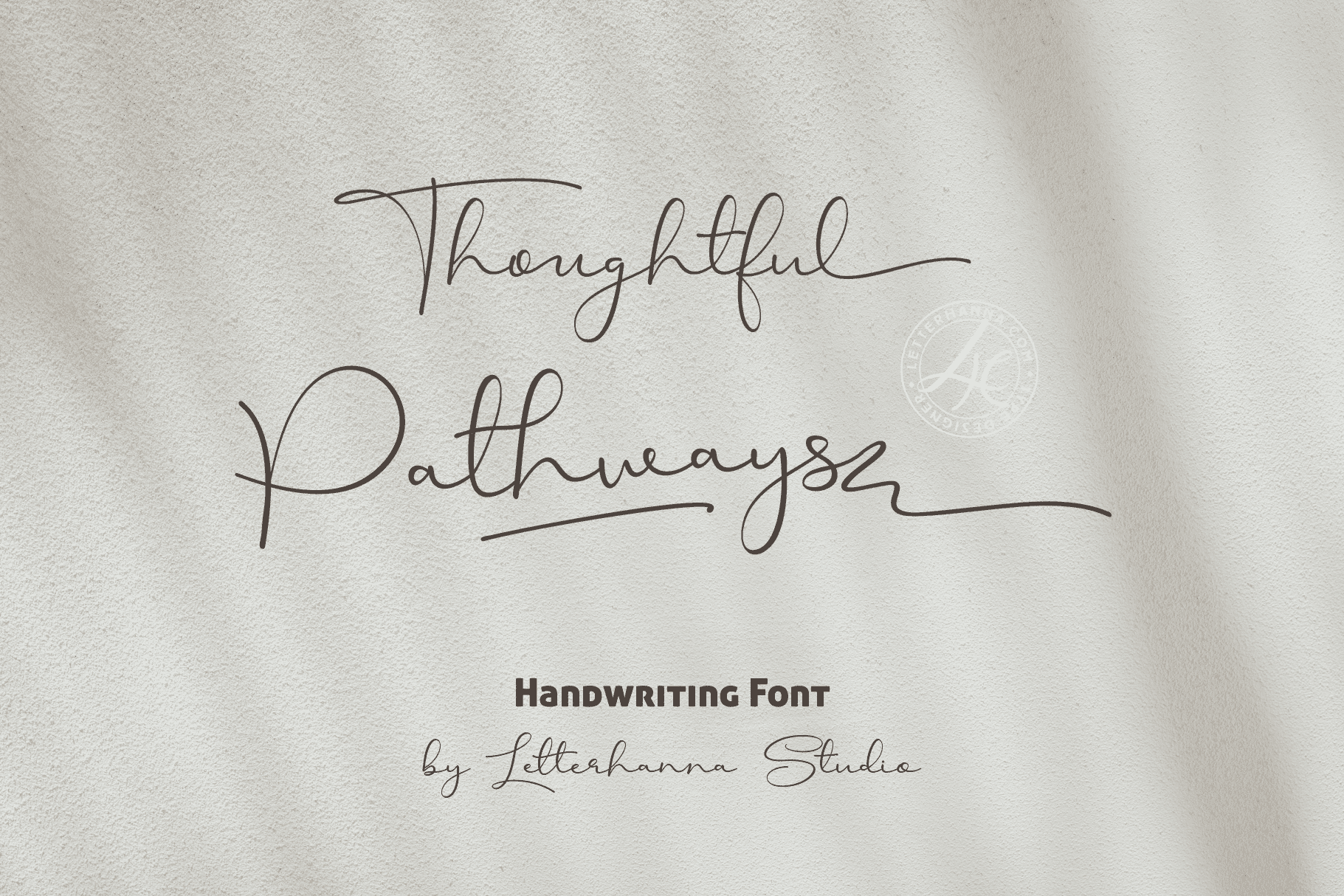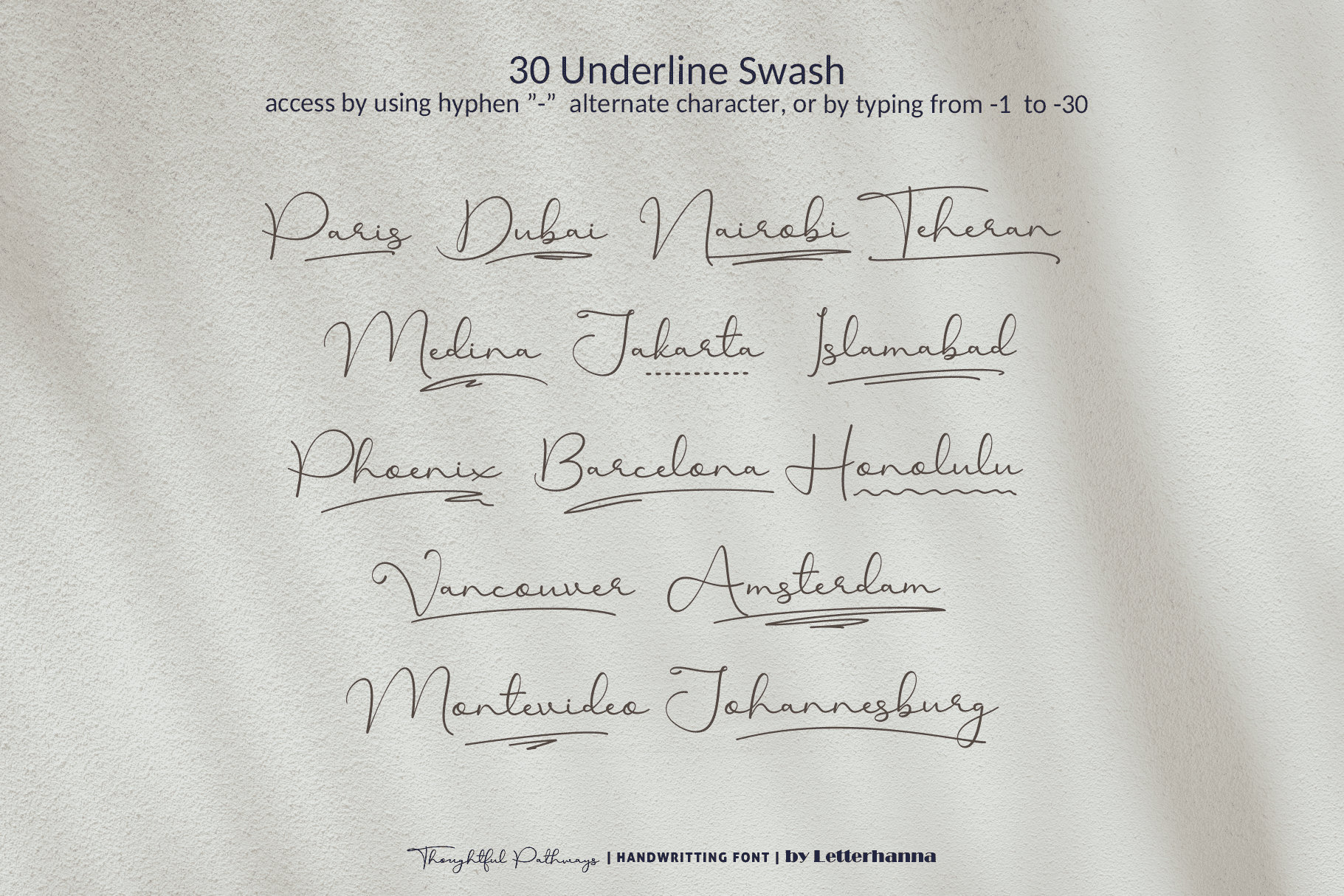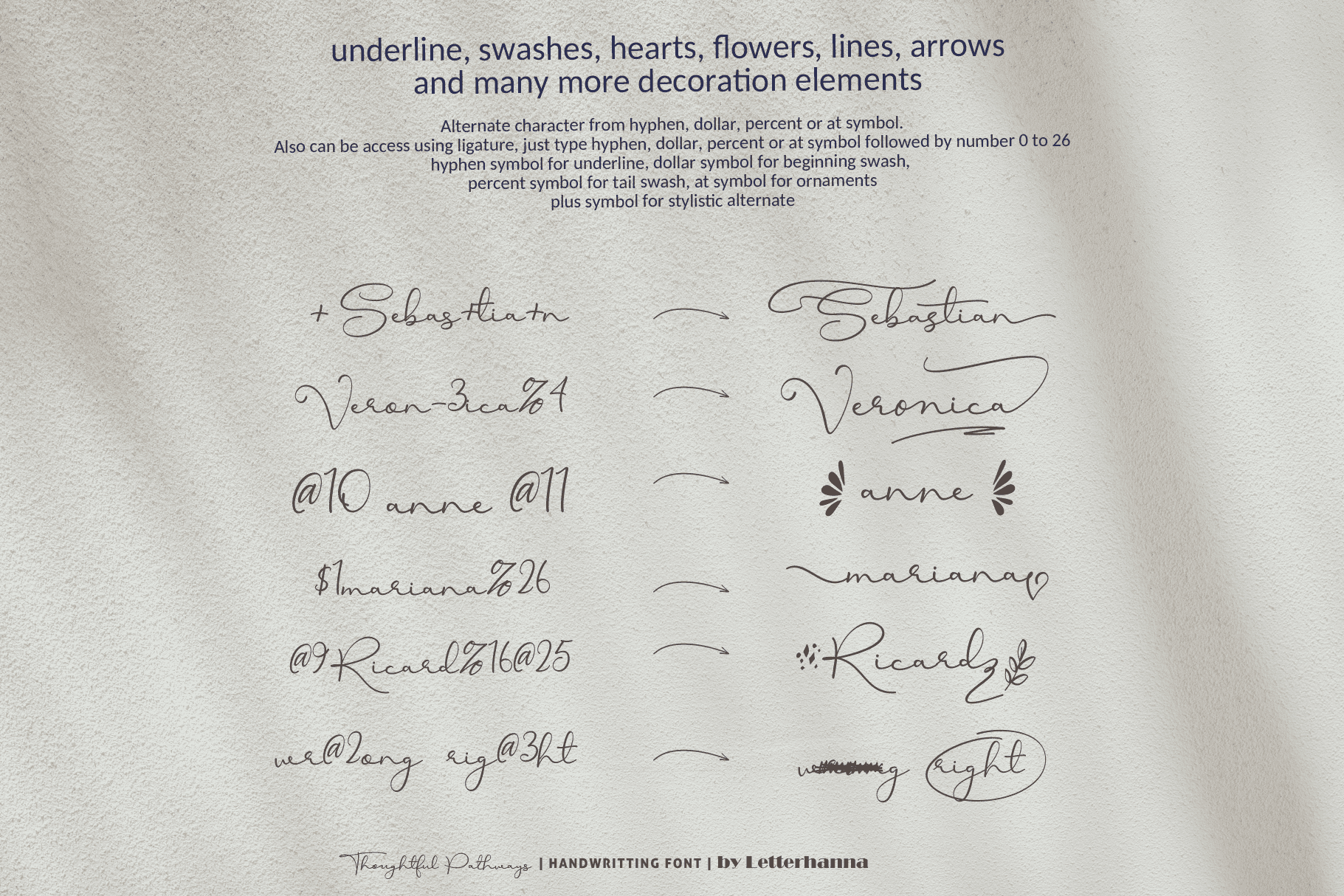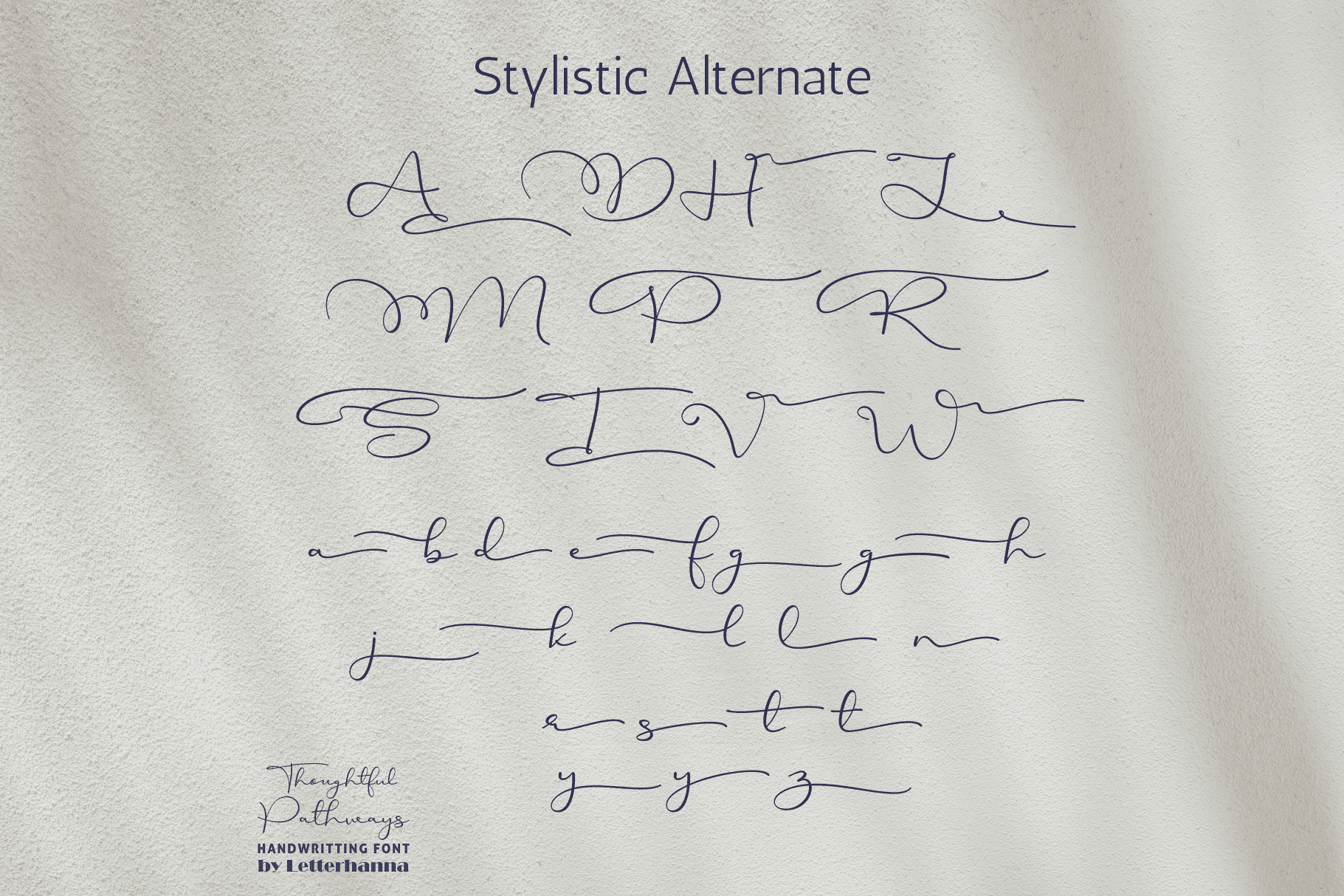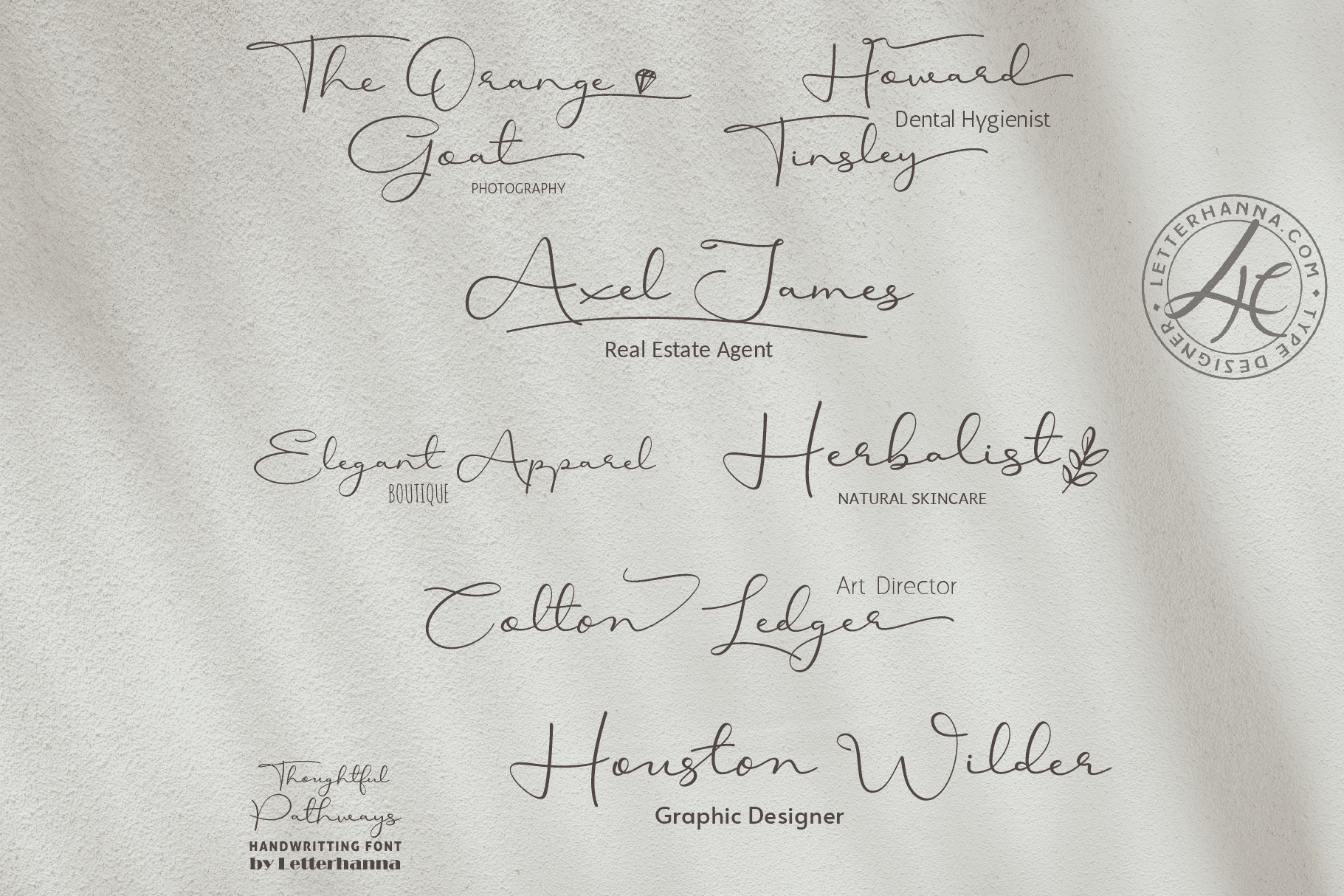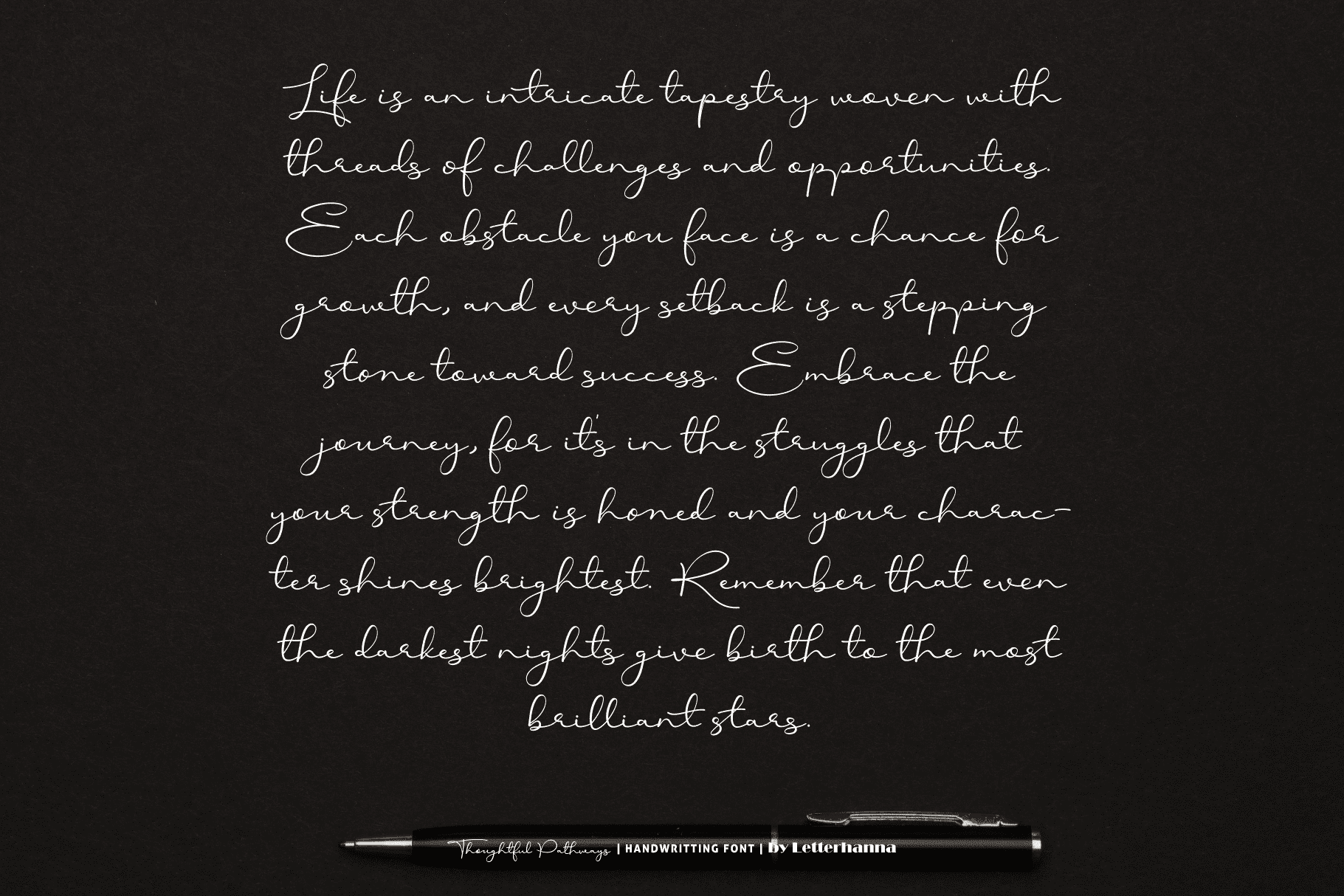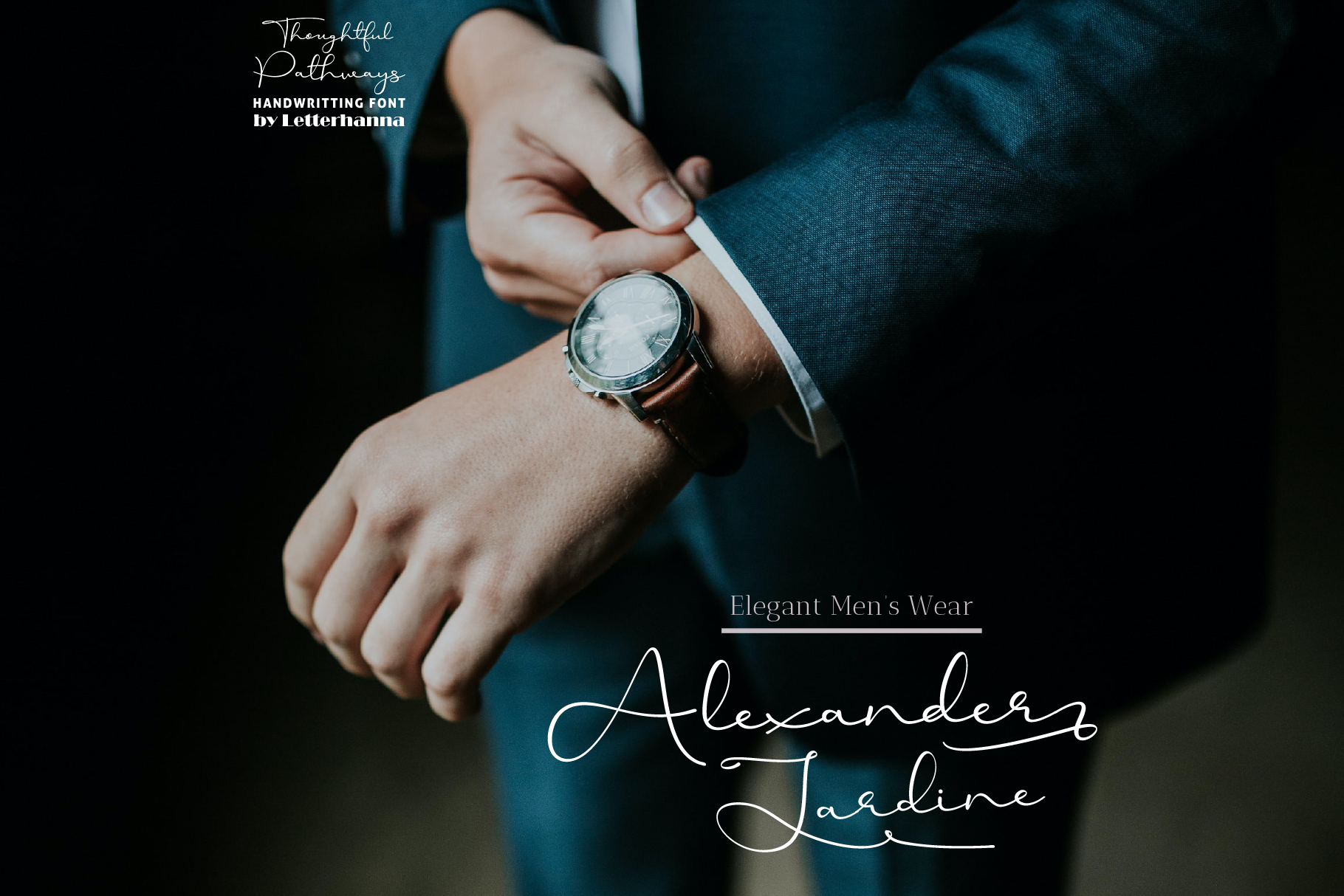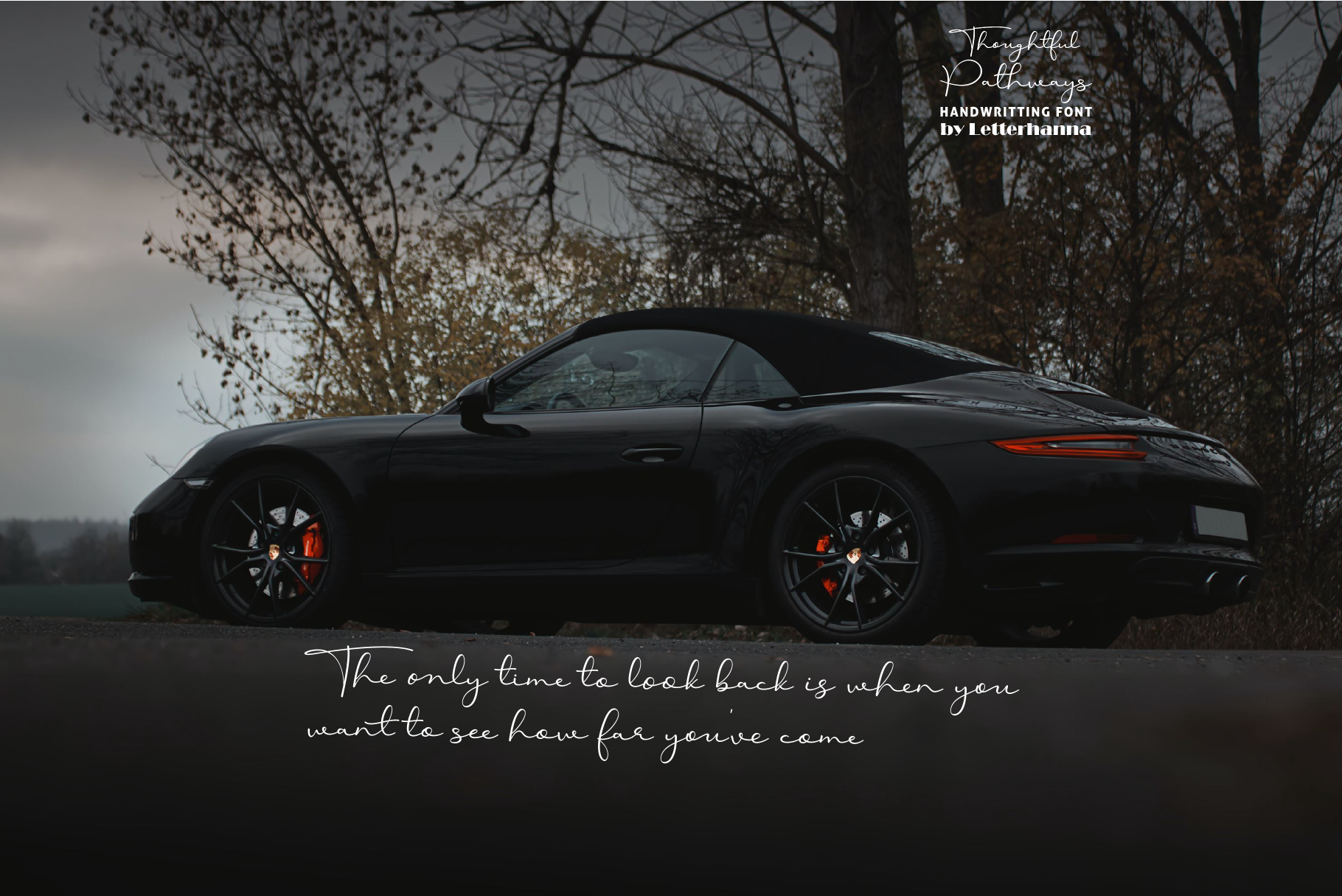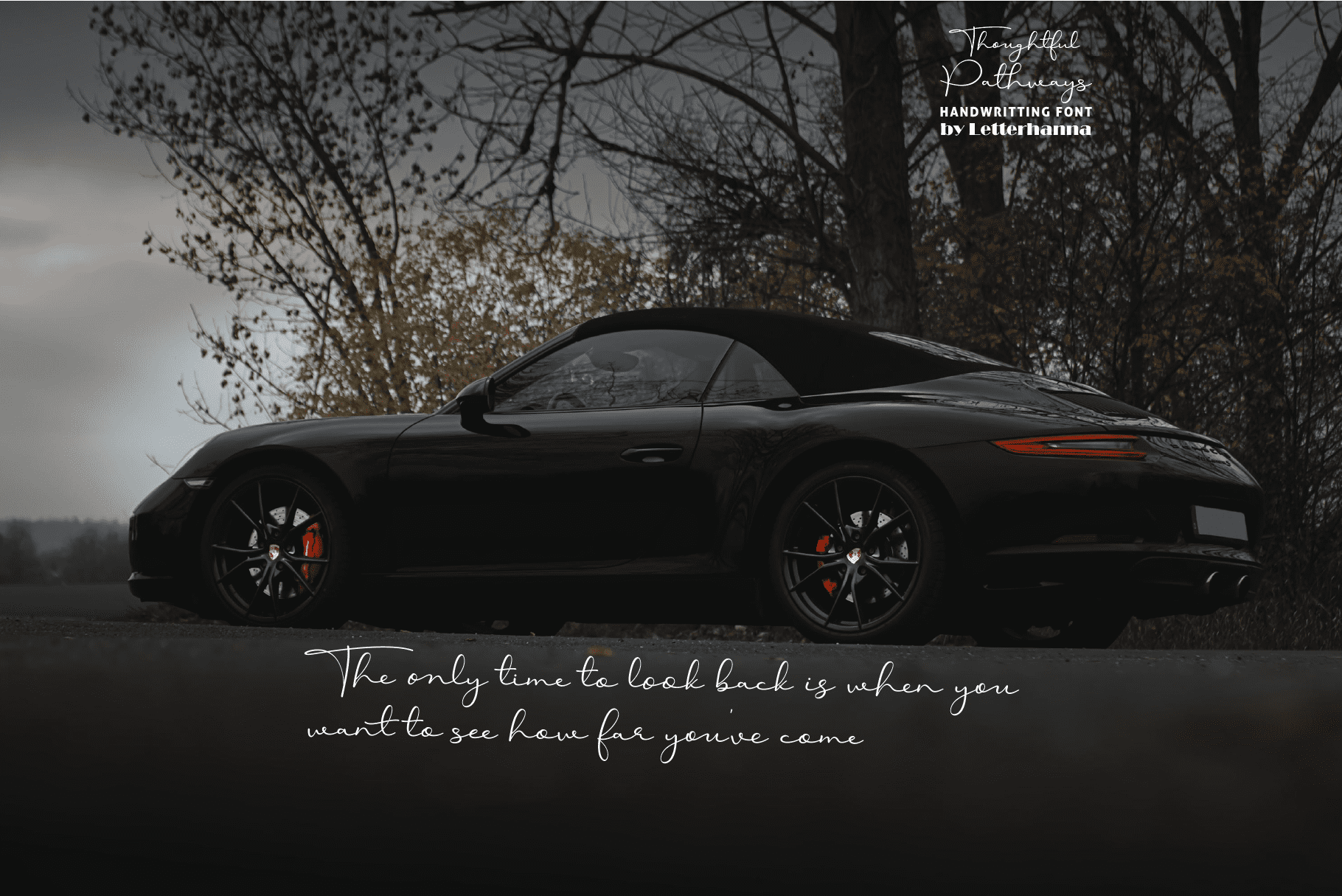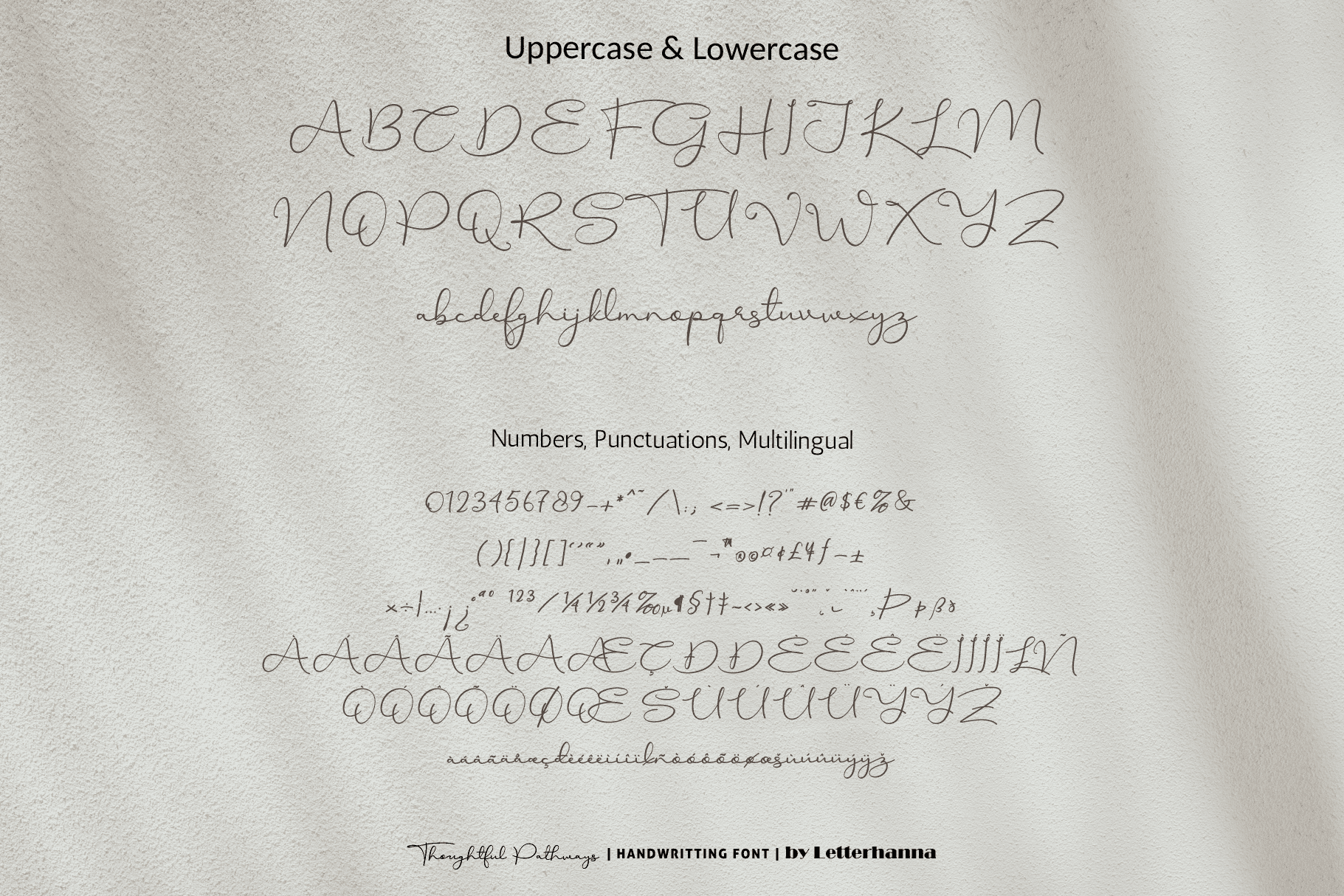
Thoughtful Pathways Font
“Introducing ‘Thoughtful Pathways,’ a captivating handwritten font that captures the essence of introspection and mindful exploration. With every stroke, it whispers the wisdom of a thousand quiet moments, guiding you through the intricate trails of your thoughts. Each letter is an invitation to embark on a journey of self-discovery and contemplation, as if every curve and line maps out the way to inner clarity. ‘Thoughtful Pathways’ is not just a font – it’s a companion for your creative ventures, leading you along the paths of inspiration with grace and intention.”
Thoughtful Pathways Font was created to look as close to a natural handwritten script as possible by including over 33 natural-looking opentype ligatures, Uppercase and lowercase Stylistic Alternate, a lot of head/beginning swashes and tail/ending swashes. There are also 30 underline swashes included and lot more ornaments, arrow, scribbles, etc.
Stylistic alternate can be access by type plus symbol “+” in front of the original letter, for example type +A to get stylistic alternate of letter A capital.
Underline swashes can be access by type hyphen symbol “-” then followed by number 1 to 30, for example type -3, -22 or -17 etc to get various different underline swashes.
Head/beginning swashes can be access by type dollar symbol “$” then followed by number 1 to 9, for example type $2 or $8 to get various different head/beginning swashes.
Tail/ending swashes can be access by type percent symbol “%” then followed by number 1 to 30, for example type %3 or %15 etc to get various different tail/ending swashes.
Ornaments can be access by type at symbol “at” then followed by number 1 to 26, for example type @4 or @13 etc to get various different ornaments.
FEATURES
– Uppercase and Lowercase letters
– Numbering and Punctuations
– Multilingual Support
– 33 Ligatures
– Beginning and ending swashes
– Underline swashes
– Stylistic alternate
– Contextual alternate
– Ornaments
– Easy access swash just by using ligatures